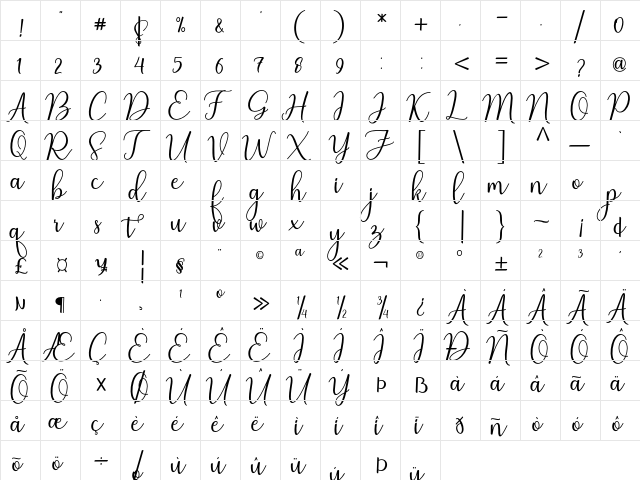
Nafila Regular
Design Context for Nafila Typeface
Nafila is a composed and adaptable typeface that performs quietly and consistently across a wide range of design contexts.